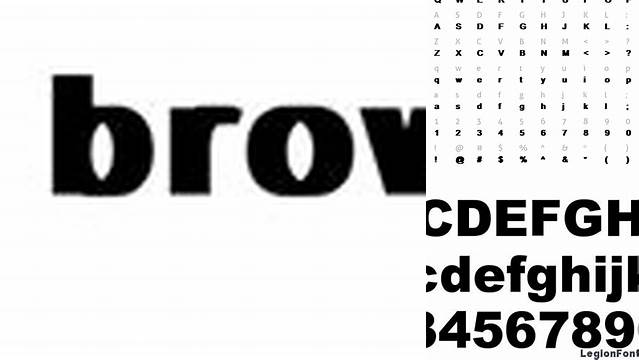
Arial Black Font: Free Download & Design Guide
Hey guys! If you're on the hunt for a font that screams confidence and demands attention, then Arial Black is your go-to choice. In this article, we're diving deep into everything you need to know about the Arial Black font, including where to snag a free download and how to make the most of it in your projects. Whether you're a seasoned designer or just starting out, understanding this font is crucial for making your text pop. Let's get started and explore the power of this fantastic font!
What is Arial Black?
First things first, let's get acquainted with the star of the show: Arial Black. It's a member of the Arial family, which itself is a close relative of Helvetica. Arial Black, however, takes things up a notch with its extra-bold, heavy weight. Imagine Arial, but amplified! The design is clean, modern, and incredibly readable, even at larger sizes. This makes it perfect for headlines, titles, and any text that needs to grab a reader's eye immediately.
This font is a workhorse for designers worldwide, used extensively in both digital and print media. You've likely encountered it in various contexts, from website headers to posters, logos, and more. Its versatility comes from its strong presence and clear legibility. The bold strokes and distinct letterforms ensure that your message won't be missed. Arial Black isn't just about aesthetics; it's about impact. It conveys strength, authority, and a modern sensibility, all in one font. It's a perfect option when you want to be sure your message is clear and bold. From the moment you see it, Arial Black makes a statement.
When compared to its more delicate counterparts, Arial Black stands out. Its heavy weight offers a stark contrast that is immediately noticeable. It’s a statement of confidence. The design is consistent and well-balanced. The font is designed to be readable even at large sizes, making it ideal for various applications. Whether it's a website banner, a print advertisement, or a logo, Arial Black is a versatile choice that will draw attention.
So, what makes Arial Black special? The answer lies in its design. The letters are bold and easily distinguishable, even when used in smaller text or viewed from a distance. The font family provides excellent readability, especially when you need to convey a strong message. In an era where clarity is paramount, this font has become a popular choice. This is why understanding and knowing where to download it is essential for any creative project.
Conclusion: Unleash the Power of Arial Black